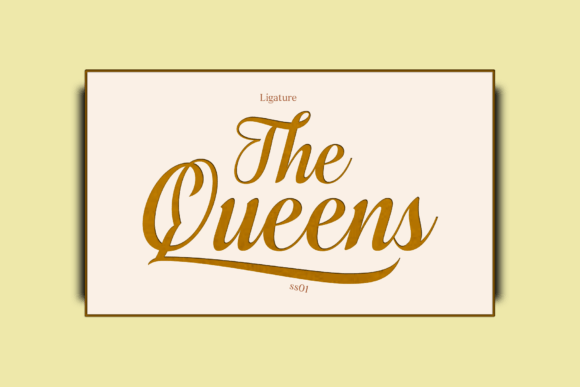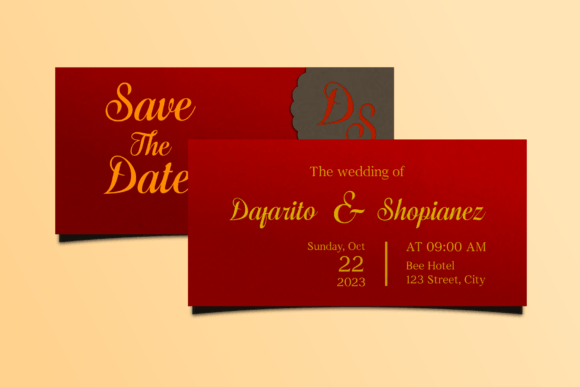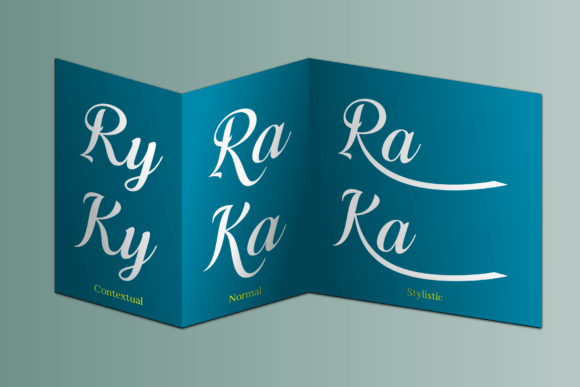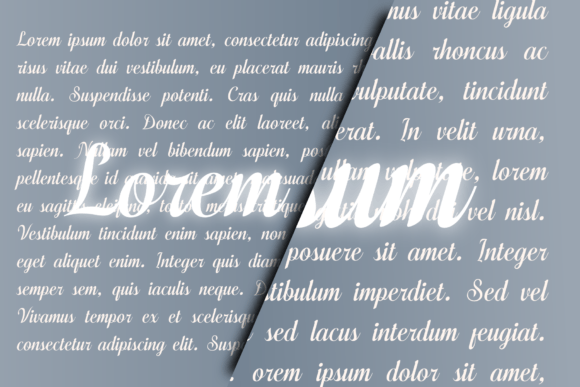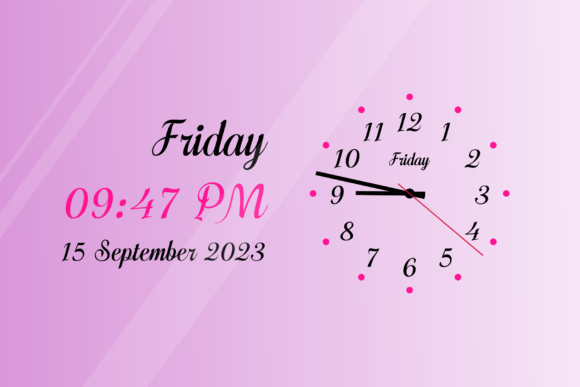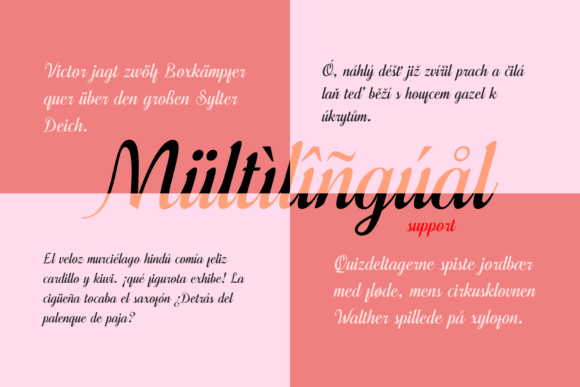
Introduction to Hareer Font
Hareer is an attractive and simple script font, it is carefully crafted to make your text look beautiful.
This font is suitable for various projects, for example: posters, invitations, weddings, greeting cards, business cards, logos, quotes, fashion, blog headers, branding, letters, stationery, etc Hareer has the main features Stylistic set of capital letters and several ligatures.
Key Features of Hareer Font